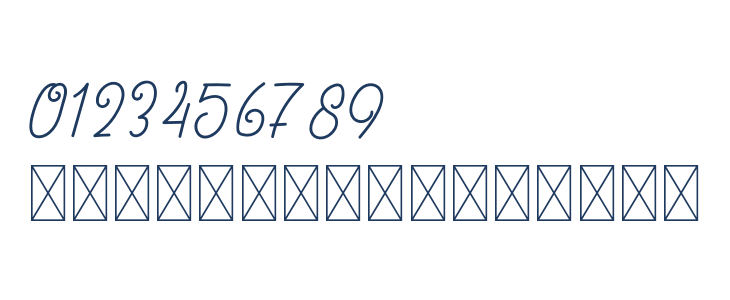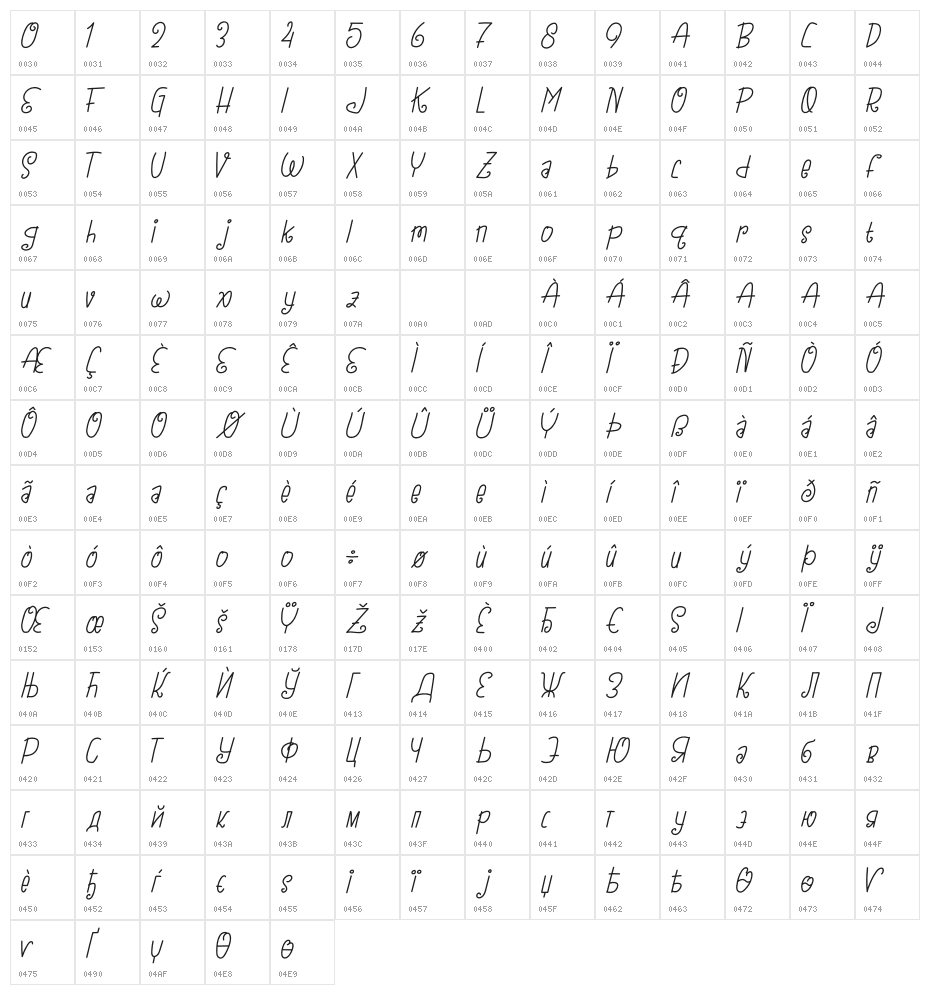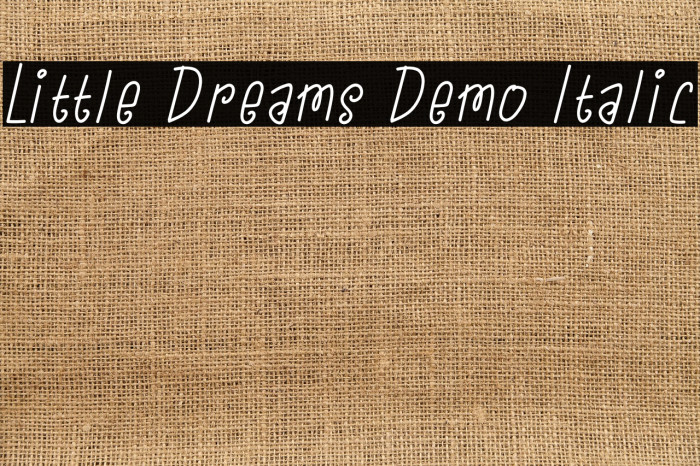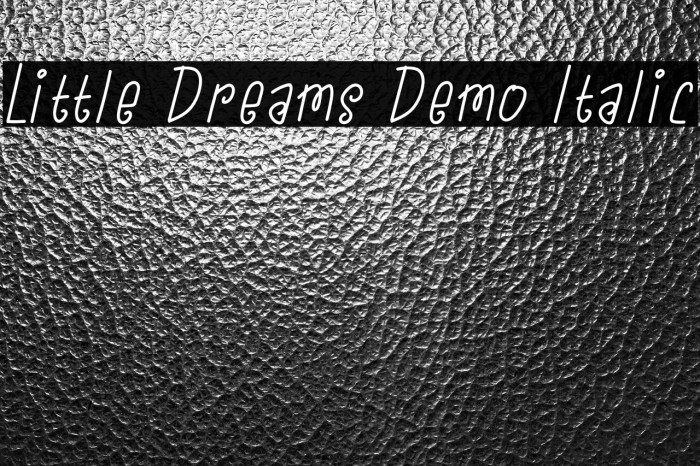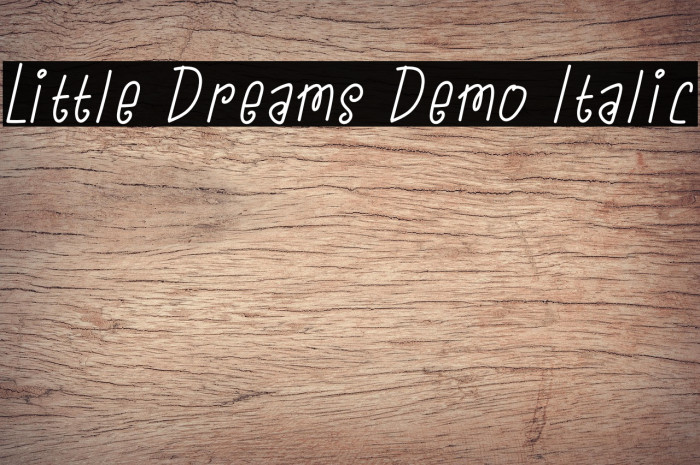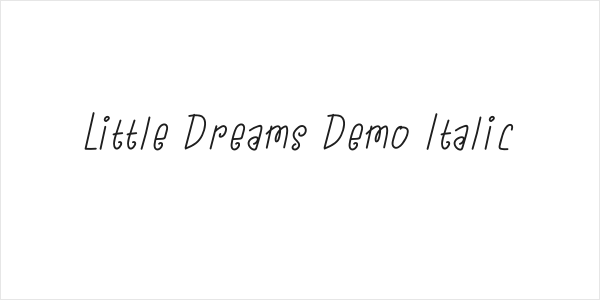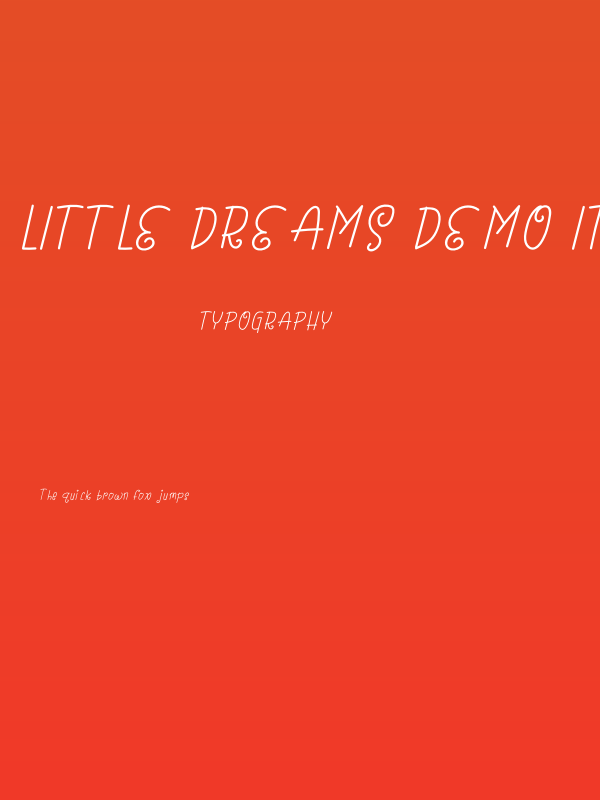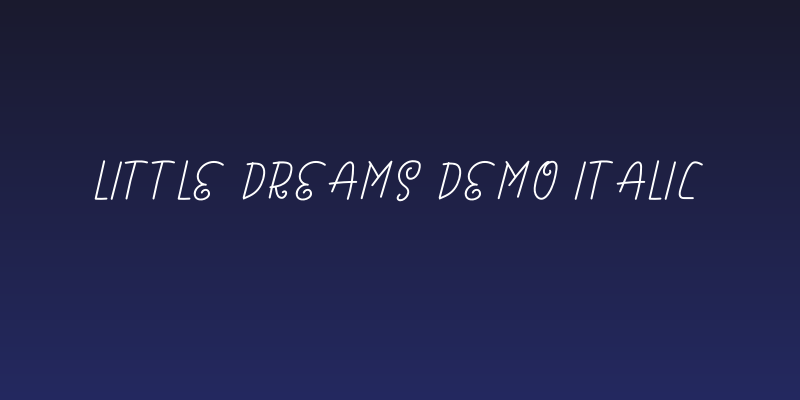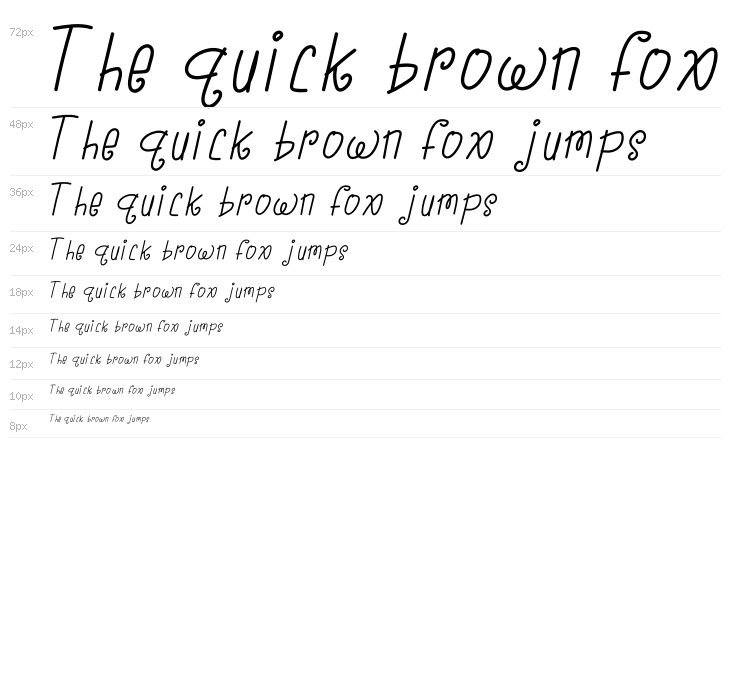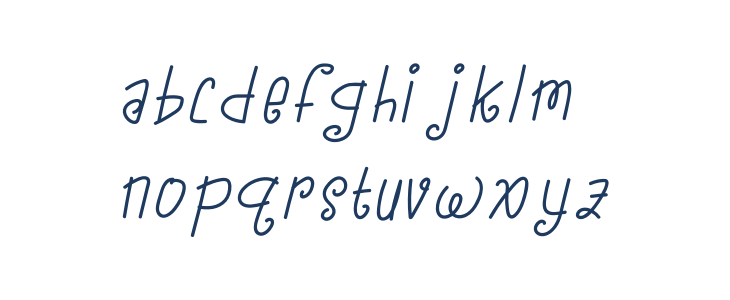
Little Dreams Demo Italic Font
Little Dreams Demo Italic Description
This font features a whimsical, handwritten style with a playful and casual appearance. The characters are slightly slanted, giving an italicized look that adds a sense of motion and fluidity. The strokes are consistent in width, providing a uniform and clean appearance. The uppercase letters have a distinct, artistic flair with unique loops and curves, while the lowercase letters maintain a friendly and approachable feel. The numerals are clear and easy to read, complementing the overall style. Special characters are included, maintaining the same playful aesthetic.